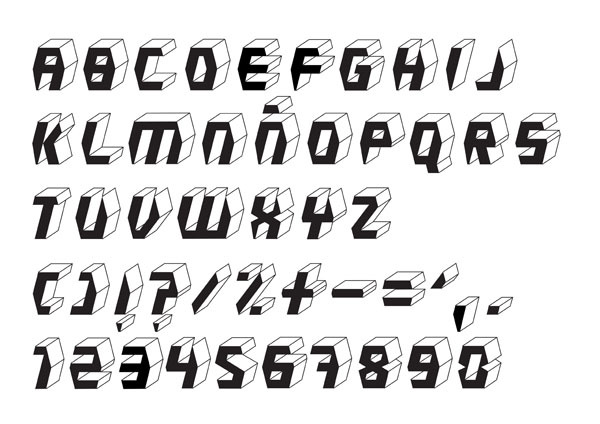
Hexagonal typefaces
[Headline set in Hexahedra (2012, Riccardo Sabatini)]
38 Lineart Studio (or: Grayscale, or: Fontsources)
[Muhammad Ridha Agusni]
Architect and designer in Banda Aceh, Indonesia, b. 1980, who set up Grayscale, then 38 Lineart, and finally Fontsources.
In 2018, he released the hexagonally-patterned color font Space, the nervous monoline display typeface Barcelona, the monoline script Brandy, the tattoo and metal band blackletter font Amstha, Twinkle (hexagonal texture), Premium Quality, Hightide (signage script), Ashley Pages, Bold Grunge (a wood style Western font), Rabbit House, Strongbold (brush style), Onthel (a rhythmic signage script), Cafeine, Seulanga (calligraphic), Sweet Bubble, Downhill, Architecture (technical writing font), Wisethink (rough brush), Emerald, Ghotic, Oakland (signage script), Parthenon (signage script), Strawberry Night (script), the formal calligraphic font Beauty Athena, the inline font Epicentrum, and the signature font Attitude in 2018.
Typefaces from 2019: Ghoust (a marker font done at Cititype), Diamant Handwriting (a signature font), Utrecht (with Siti Saribanon Nurjannah), Exhibitionist (a fine rhythmic script), Holimount, Prague Metronome (a thin signature script), Allegroost (a brush typeface), Anisha (script), Kyoto Northern, ChiQuel (a Victorian display typeface that can be layered), Hillstone (a dry brush script), Malique, Ginchiest (a retro signage script), Kid Knowledge, Haghia, Khatija Calligraphy, Bernound, Graffity, Brandy Script (monoline), Downhill, Concept (sketched, blueprint font), Konya (signature script), Blacksmith, Curve Calibration (condensed sans).
Typefaces from 2020: The Pallace (a great natural inky signature script by Muhammad Ridha Agusni and Siti Saribanon Nurjannah), Chipen (inline, all caps), Jakarta (a flowing inky script by Muhammad Ridha Agusni and Siti Saribanon Nurjannah), Rhode White (a great signature script by Muhammad Ridha Agusni and Siti Saribanon Nurjannah), Bailamore (a creamy signage script), Vogie (a sporty / techno sans family of 72 fonts, plus a variable font), Rollingtime (a brush script jointly designed by Muhammad Ridha Agusni and Siti Saribanon Nurjannah), Piedmont (a heavy connected handwriting script advertized as a masculine signature font), Whiplash (an all caps dry brush font), Aceh (a 36-style geometric sans), Youthink, Sacred Letter (a vintage weathered script), Serif Sketch (by Muhammad Ridha Agusni and Siti Saribanon Nurjannah), Corinthiago, Smart Chameleon (a handcrafted typewriter font by Muhammad Ridha Agusni and Siti Saribanon Nurjannah), Hiroshima Gyoshi (a brush font inspired by Japanese calligraphy), Roughmarker (dry marker font), Brotherhood, Blugie (a fat finger font), Rome Ionic (an all caps roman typeface), Black Orchestra (a great horror or black metal font), Black Orchestra (a horror font).
Typefaces from 2021: Magreb (an 8-style renaissance serif typeface), Toxide (calligraphic; Celtic; uncial), Redtone (a 14-style geometric sans), Moula (an 18-style geometric sans for Latin, Greek and Cyrillic), Zouk (blackletter), Zagreb (an inky signature script by Muhammad Ridha Agusni and Siti Saribanon Nurjannah), Alsace (Victorian), Backbone (a black metal blackletter typeface), Roundkey (a 24-style condensed, but not round, sans), Wordwalker (a marker pen font by Muhammad Ridha Agusni and Siti Saribanon Nurjannah for Cititype), Sweet Bubble (a bubblicious font), Souljah (an elegant inky calligraphic script).
Adam Freese
Kansas City, MO-based designer of the hexagonal monoline typeface Matryx (2018). [Google] [More]  ⦿
Adam Lane
Amsterdam, The Netherlands-based designer of the outlined caps typeface Batavia (2016). It is an all caps typeface inspired by the gilded lettering on an old Amsterdam trading post built in 1920. He also designed the free Hex Font (2016). Home page. Open Font Library link. [Google] [More]  ⦿
Adrian Candela
Valencia, Spain-based creator of the Bauhaus-inspired monoline geometric rounded sans typeface Bowhouse (2013, free), the retro futuristic typeface AC Brodie (2013, free), the free art deco typeface AC Mountain (2013), the 3d typeface AC Framed (2013), the film strip typeface AC Filmstrip (2013, free), Comic Runes (2013, rune simulation), Scribbled (2013), and the hexagonal typeface Bee Type (2013, +Filled, +outline).
Newsense (2013) is an art deco typeface that extends Milton Glaser's Film Sense (1968).
Romaji Mincho (2013) is a free Asian simulation font based on the style of the Mincho typeface. Rhyder (2013) is a great (free) geometric 1930s style sans typeface. Martell (2013) is a free general purpose slab serif family.
AC Big Serif (2013) is a free rounded wedge serif typeface. AC Thermes (2013) is a sans display typeface.
Typefaces from 2014: AC Wanita (hand-drawn).
Typefaces from 2019: AC Guanche (a font based on the ancient scripts used by the Guanches, the aboriginal inhabitants of the Canary Islands). [Google] [More]  ⦿
Akashsingh Sisodiya
Nagpur, India-based designer of the stencil typeface Edge (2016) and the hexagonal typeface Hex (2016). In 2017, he designed the techno typeface Curved. Behance link. [Google] [More]  ⦿
Akos Polgárdi
Pest, Hungary-based designer of Hexa (2012, free hexagonal typeface).
In 2013, he published the beautiful free poster font Mopster.
Trefort Grotesk (2014) is a custom unicase monoline condensed sans typeface that was created for a World War II monument at Eötvös Loránd University to commemorate the university's students and professors who died during the war.
In 2016, he designed the octagonal typeface Matematica: Matematica is a rounded, unicase, mono-spaced, pseudo-bitmap typeface constructed on a 5-by-5 grid. Relying on the most basic geometric shapes, the typeface draws heavily on the work of Dutch Bauhaus typographer Jurriaan Schrofer (1926-1990).
Aksa & Nusa Co.
Typefaces from 2018: January Fair, Scared of the Unknown, Teddy Bears, Wicked Jumps, Enter The Grid 2, Chump Change, Take Me Out, Breathe Fire II, Toon Around, Tabloid Scuzzball, The Jjester, Play Pretend, A Friend In Deed, Girlesque, Bumblebear, Joyful Theatre, Snow Deep, Car Lock, Digital Display (an LED font), Game Played, Seldom Scene, The Shape Of Things, Candy Beans, Internal Rainbows, Pride Thusly, Armwarmer, Futuristic Armour, Refresher (dry brush), Brick Shapers, Frostbite Boss, Armed and Traitorous (a rough-edged stencil typeface), Ambystoma Mexixana, The Slug and Lion, Gourmet Hearth, Virtu, Star Doors, Winter Spice Cake, Canvas Bags, Shocking Headline, Tiny Islanders (pixel font), Yumi, Nobody Talks, Finished Sympathy (white on black), One Slice, Somerton Dense, Sunday Afternoon, Close & Open, Another Flight, Kuiper Belt, Platonica, Smoother, Ladders, Cold Warm, Name Smile, Shepherdy, Friend Head, Kevlar Underwear, Scrambled Tofu, Dillydallier, Joy Kim, Office Square, You've Gotta Point, District Four, Scare Arms (grunge), 22 September, Alimony, Xmas Fairy Lights, Segreteria, Leg Hug, Coded Message, Madeleina Sans, Trample Over Beauty, Emerald Grey, Fine Allie, Bottled It, Glee Finder, Pill Anthropic, Achtung! Polizei, Say the Words, Outcome, First In Line, Brain Wants, Green Strand, Die Grinsekatze, Eight Bit Dragon (a pixel typeface), KreepTown, Loudhailer, Progesterone, Insomniax, Quick Fuse, Rowdy Space Pirates, Oestrogen, Whisper Quiet, Zosilla, Construction Lines, Juxtaposer, Tommi, Under The Weather, Xero's Punishment, Betryal of Mind, Rustic Love Tattoo, Younger Love (heavy octagonal typeface), Gossamer Girls (a pixel font), Dispence, Time Won, Blessings of Babylon, Requires Moonshine, Stroud, Hot Bleb, Nightmare Codehack, Manilla Cellos, Teeny Tiny Pixls, Ava Meridian, Wonders of the Orient, Float The Boat, Cute Zealand, Super Renewables, Lean Foreword, Mister Fisher, Love Nature, Exposure Salary, A Goblin Appears (pixel type), Project H, There Must Be, Charlestoning, Sportsquake, Violet Wasteland (dry brush), Clubbed to Life (sans), Moonwalk Miss, Best Tease, Reach The End (art deco), Slalom, A Grazing Mace, Boomer Tantrum, Disarmer (military stencil), Hell Underwater, Carnival Centenary (Tuscan), Mahalo Brother, Glue Gun, Tyrannothesaurus, Casanova Scotia, Fatherland Faker, Daughter Of A Glitch, Sparkles, Europhonic, Betelgeuze, Goregeous, Supermarketed, All The Way To The Sun, Russia Five, Soccer Scoreboard, Cinqcent, Megan June, Big Old Boldy, 501, Earthshattering, Sheeping Cats, Thousandyard, Closet Dwellers, Clicky Bricks, Painter Decorator, The 27 Club, Adventure ReQuest, Miamagon, Nineteen Ninety Seven, Vermin Verile, Great Attraction, Zirconia, Oh Beehive (hexagonal), Gofuyo (experimental geometric sans), Wideboy, Im Spiegelland, Battenberg and Custard, Bugfast, Robotic Harlequin, Scouser Ste, Blend Her, Ancient Venusian, Sivereign State (constructivist), Daily Mix 3, Brushstroke Horror, Hellgrazer, Corporation Games (sci-fi), Pride Cometh (dry brush), Squirk (stone cut), Mecklabecka (octagonal), Nineteen Ninety Three (pixel), Dominian (octagonal), Perfectly Together, Super Comic, Nrvsbrkdwn, Bottom Brazil, Don't Delay Act Now, Nu Home, Just My Type, techno at Dusk, Starbirl, Hate Agent, Fool's errand, Bullet Rain, Orchestra of Strings, One Pill Makes You Larger, Interlewd, Fandomonium, Ball Bearing, Jamboree, Hot Thin Roof, No Added Sugar, X Termination, Real Fun Time, Der Neue Spargel, Nineteen Eight Seven (pixel), Bittypix Countdown, Nineteen Ninety Six, Fasterisq, Peekavous, Modest Felt, Im Wunderland, Megarok, Sunk Foal Brother, Skydiver, Chasing Rabbits, Background Noise, Viridian College, Sacred Hertz, Sawyers Whitewash, Brittle, Cupcake Smiles, Machine Gunk, Dubspikes, Onslaughter, Eyes Wide Suicide, Boatycabiners, All Square Now (pixel), Hawking Bowen (octagonal), Style Thief, Tagon (octagonal), Withheld Data (LED font), Dubstep Blackletter, Pixabubble, Hopelelessly in Lurve, Springtime Daydream, Techno Til Dawn, Fluid Lighter, Rush Rush (stencil), Incompetent Landlord, Danger on the Motorway (dot matrix), Hippopotamus Apocalypse (hexagonal), Homunculus, Bittypix Monospace (pixel font), Unicorn Scribbles, Rockout, Truly Madly Dpad, Tincture, Virtual Pet Sans (dot matrix font), How Are You Today (ultra-condensed), Juicebox, Chemical Superior, Organic Teabags, Broadsheet Bubble, Document Two, Slope Opera, Blockbrokers, Off The Haze, Gang Wolfik, Gnorts Mr A, Radiator Falls, Take Me On, Cyberspace Raceway, Rocket Rinder, May We, The Citadels, Life Is Okay, Astrolab, Simple Stitch, Feeding A Moment, Gooseberry Juice, Namso, Rabbit Fire, Texas Drop, Short Xurkit, Maiden Crimes, Hysterix, Introducing Pretentiousness, Lullaby Weight, Slumbers Weight, Vampires, Veal Nerve (a neurotic typeface), Be Kind To Earth, Aardvark Sk8, Ancient Modern Tales (blackletter), Spider Talent (Halloween font), Pooch Doo, Plan G, Rhapsodies (art deco), Lab Pulsar (sci-fi), Hamburg Messe (blackletter), Xide, Scrawling Pad, Bun Ting, Speedeasy, Itty Bity Notebook.